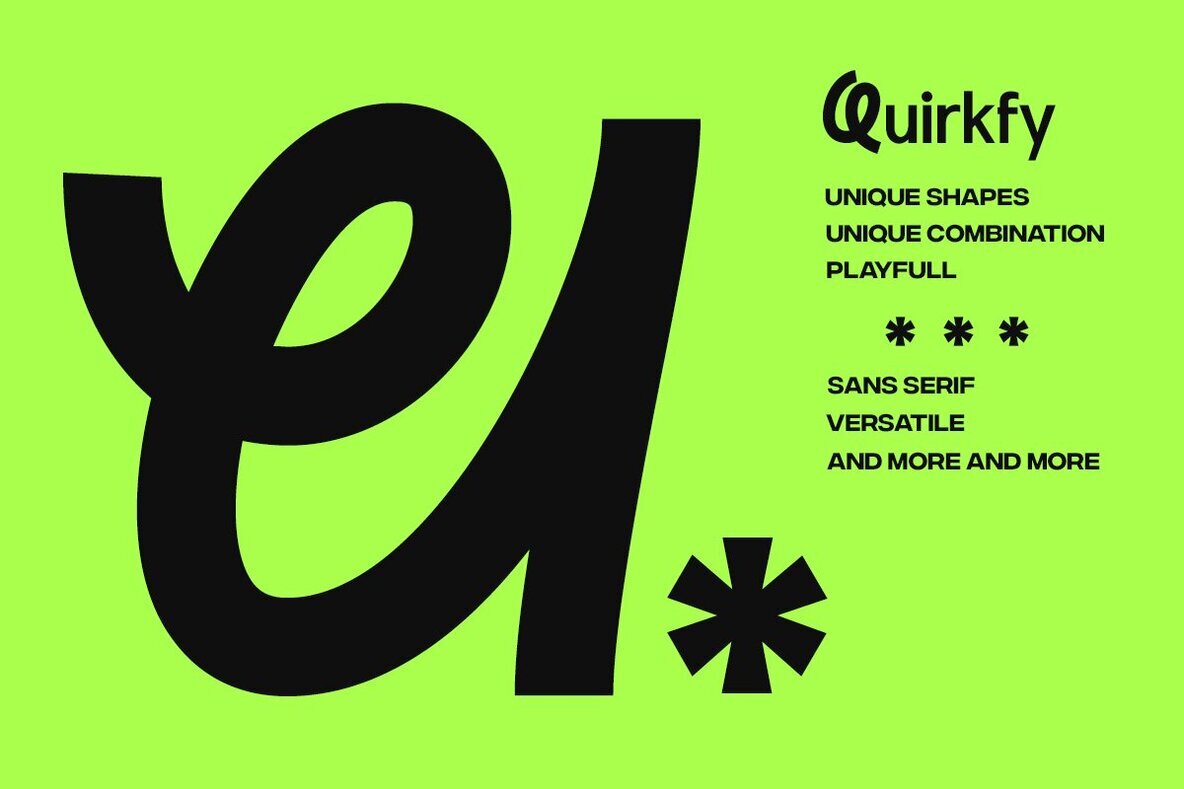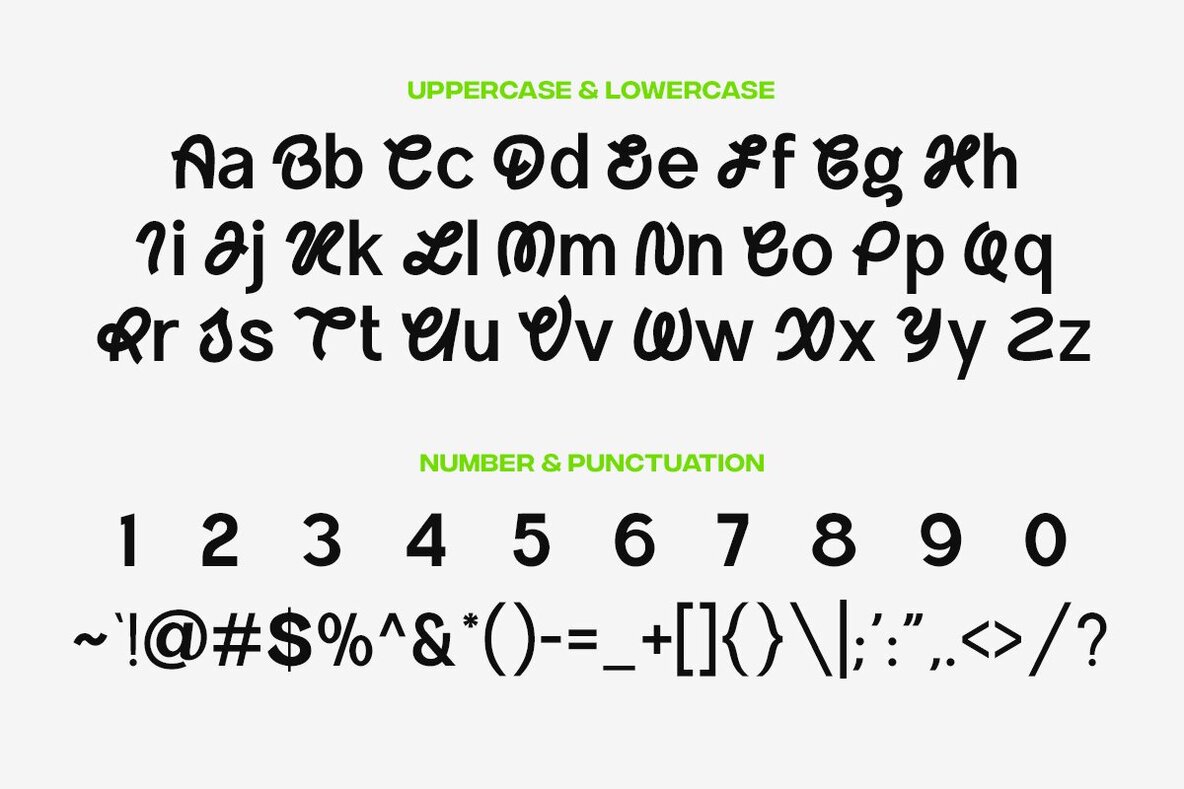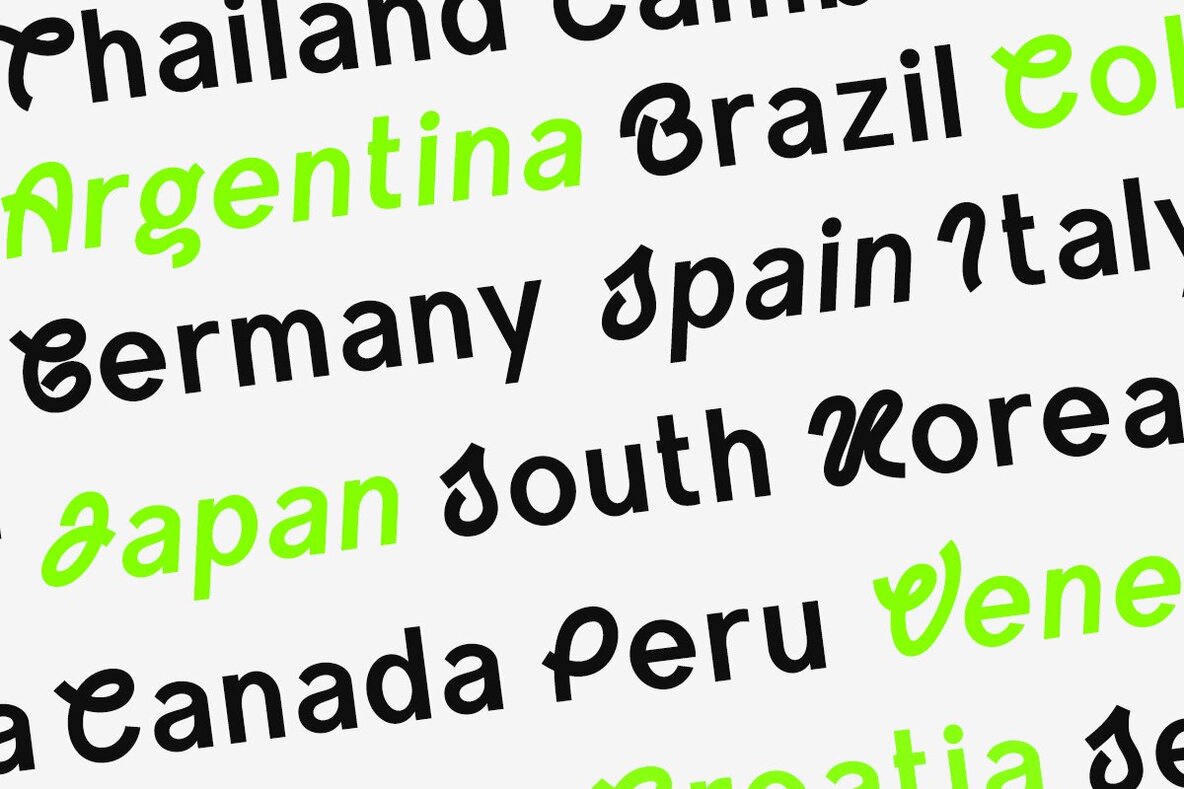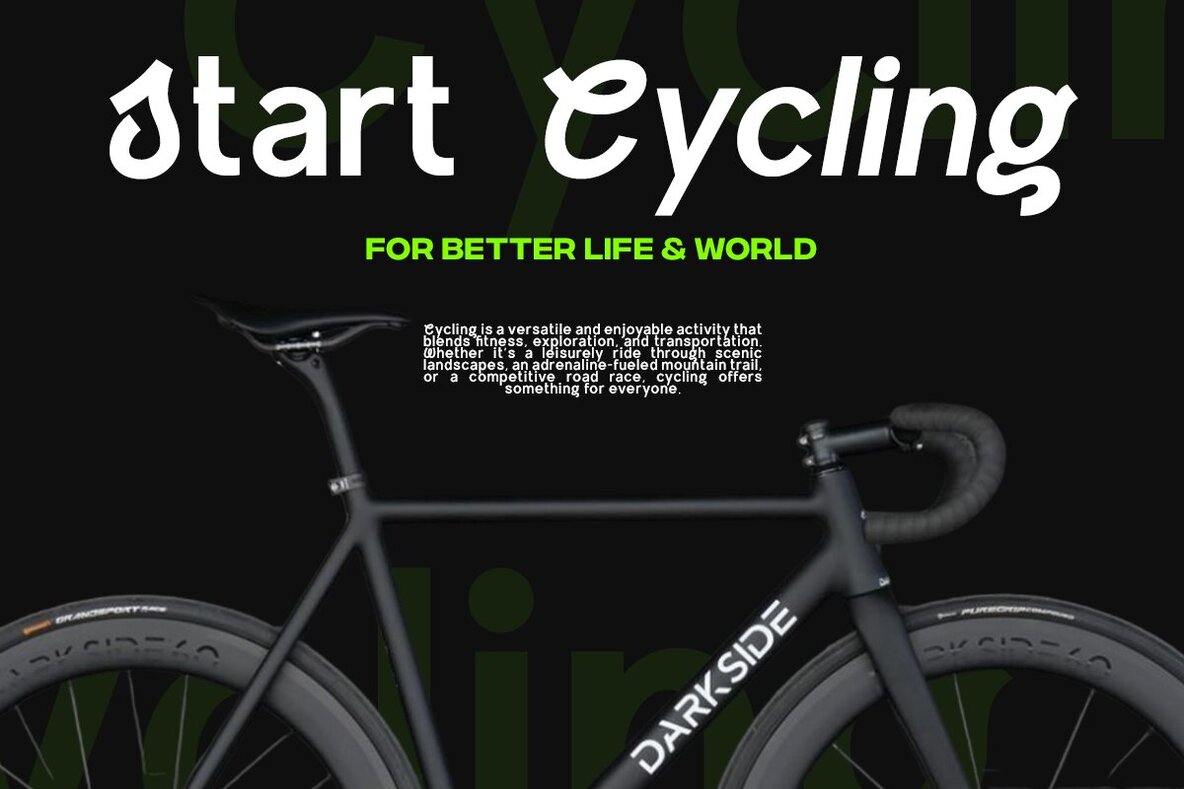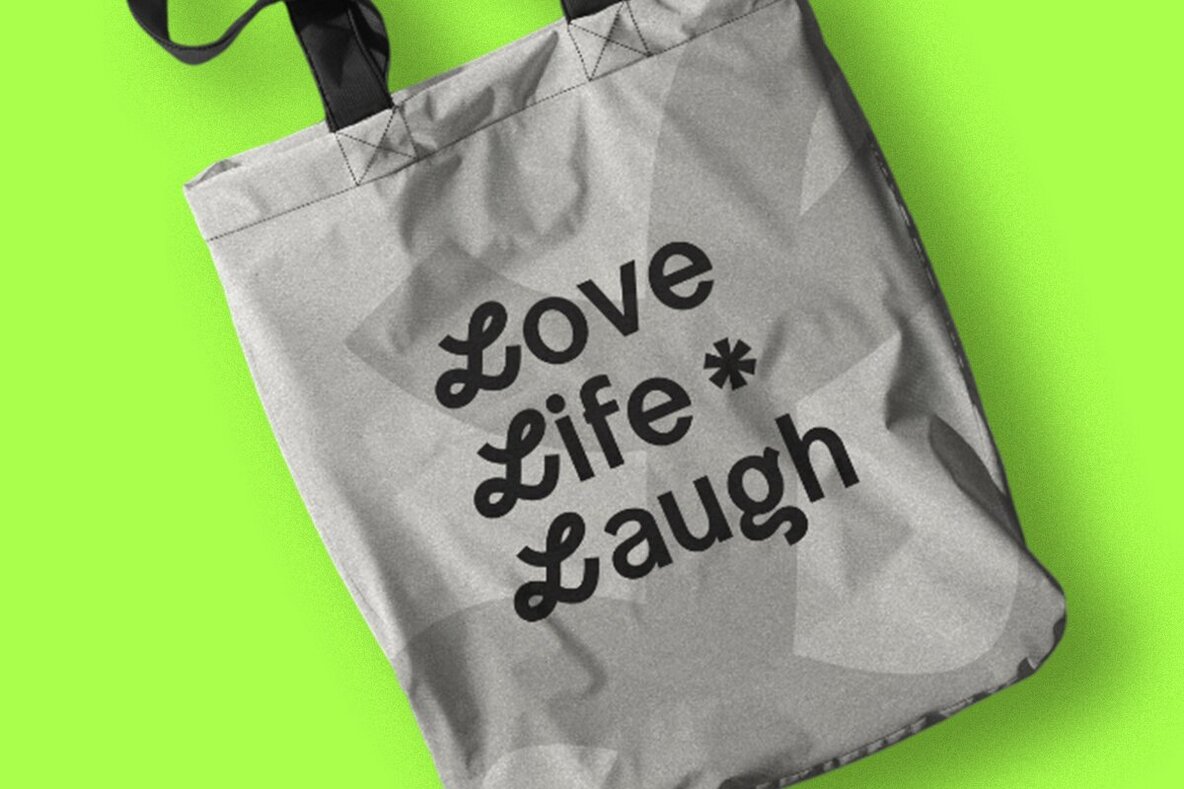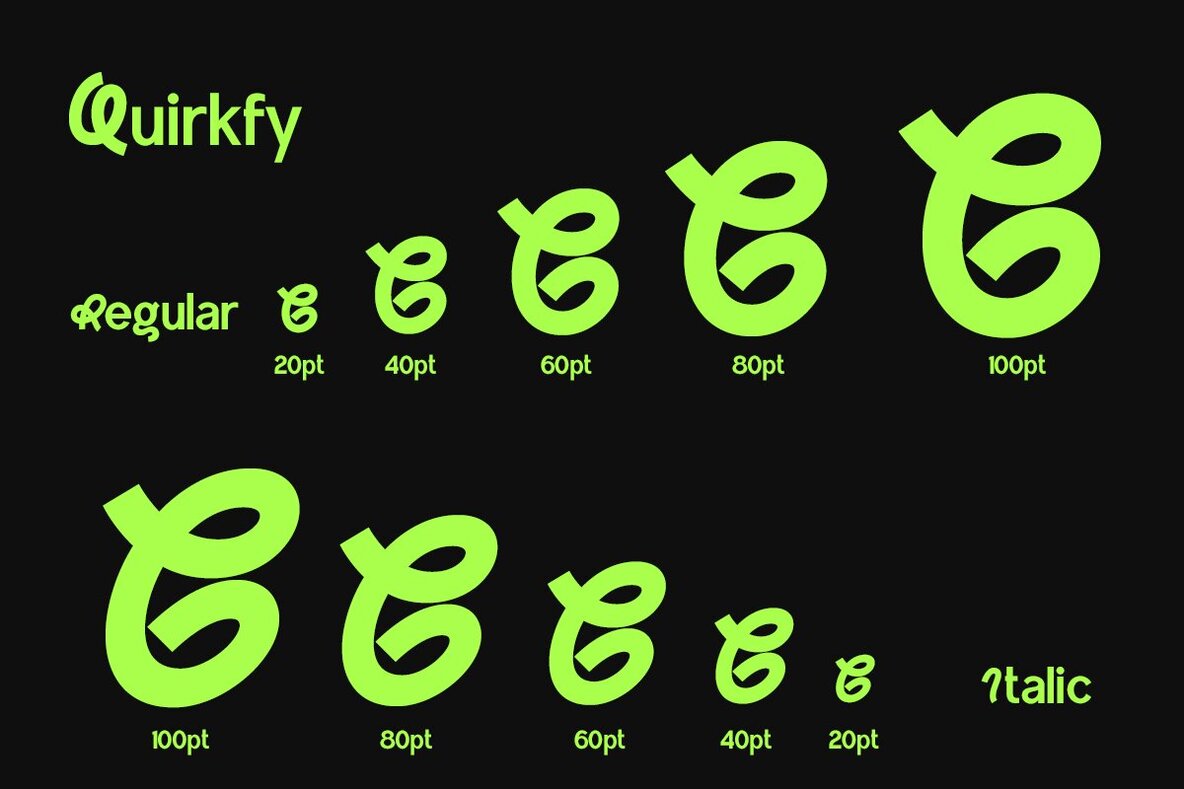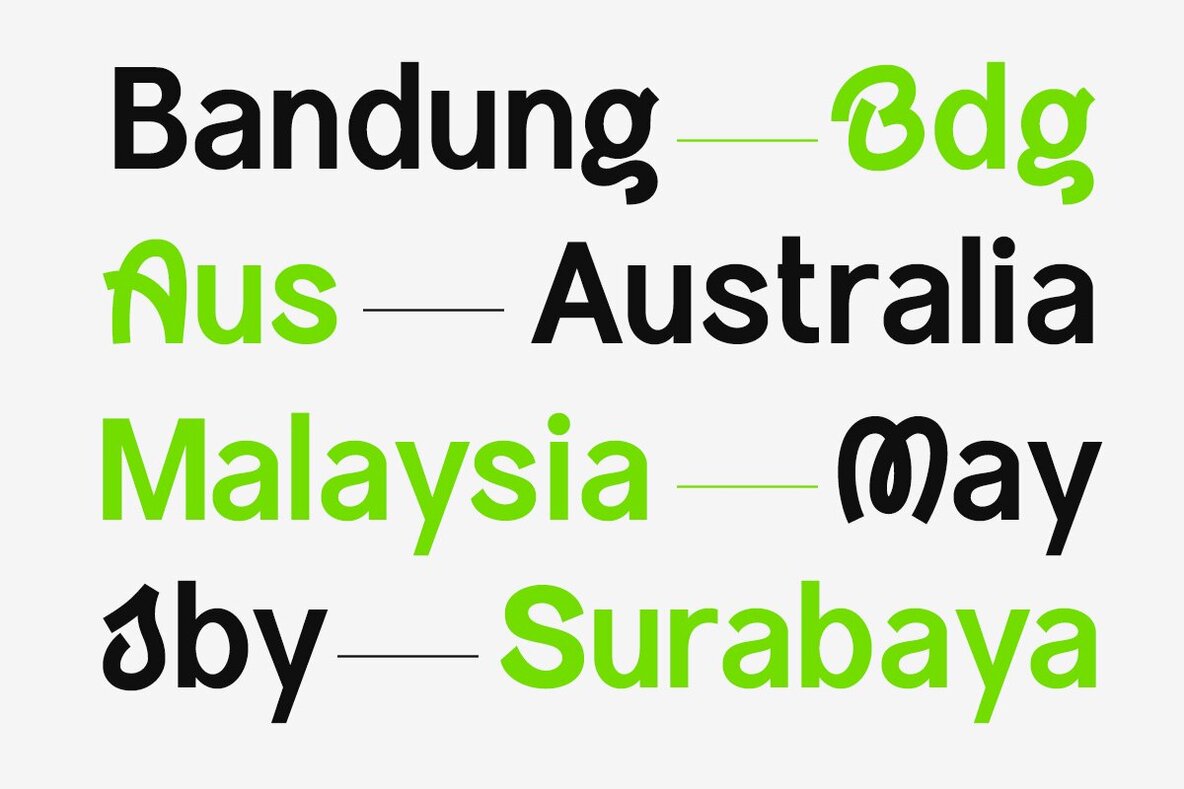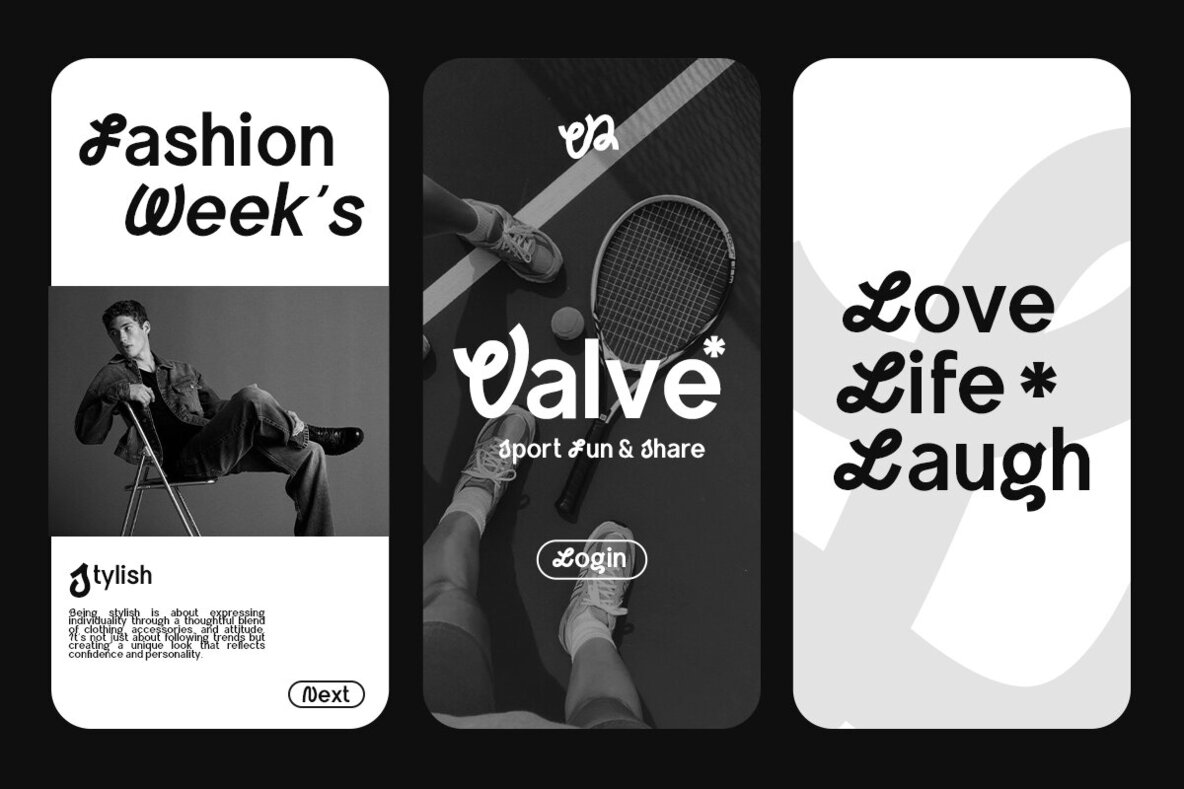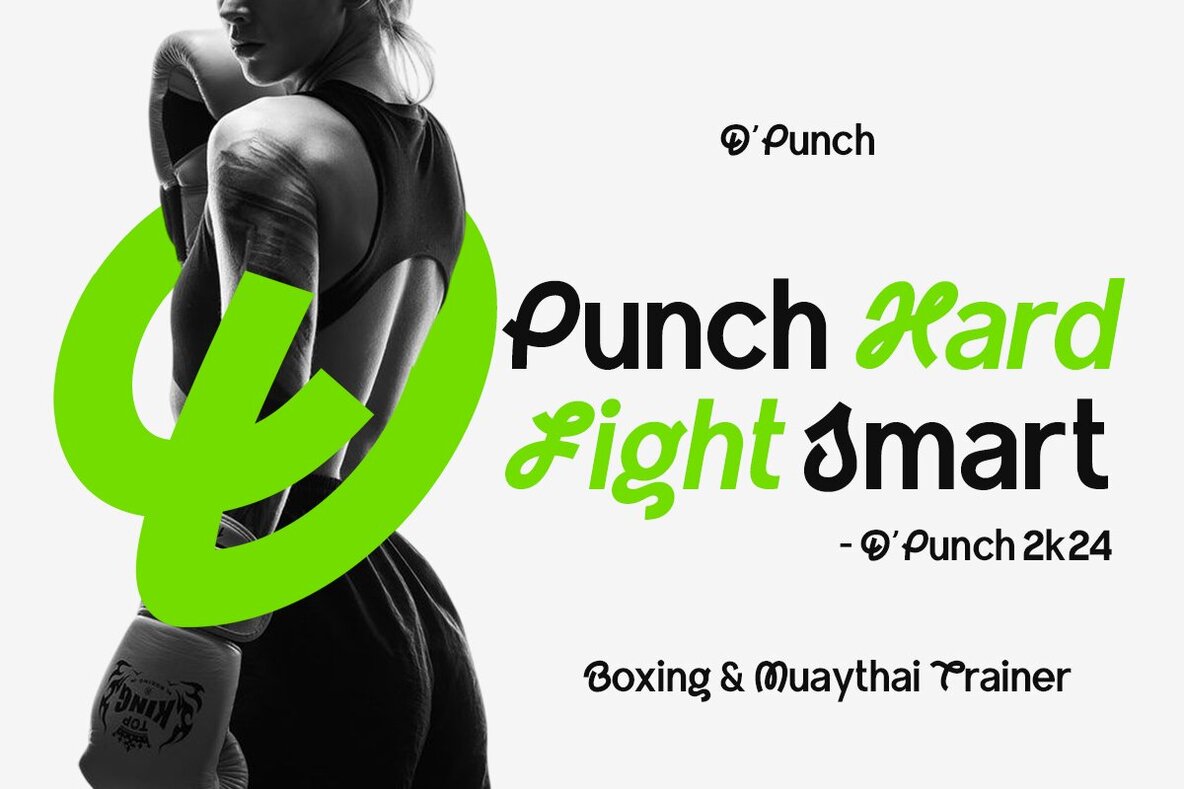
Quirckfy Font
Quirkfy is a bold sans-serif font that brings a playful and unique character to modern design projects. With its distinctive alternate letterforms, this typeface skillfully balances clean minimalism with creative expression. Quirkfy is an excellent choice for headlines, branding, packaging, and editorial design, infusing a touch of personality into any visual composition.
Key features of Quirkfy include its unique alternates and multilingual support. This professional typeface ensures readability with its bold lines while offering customization options through alternate glyphs. Elevate your design projects with Quirkfy and achieve a truly distinctive look.